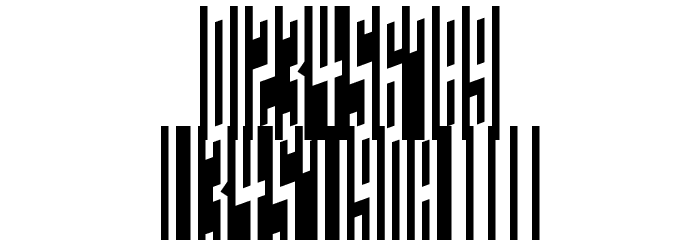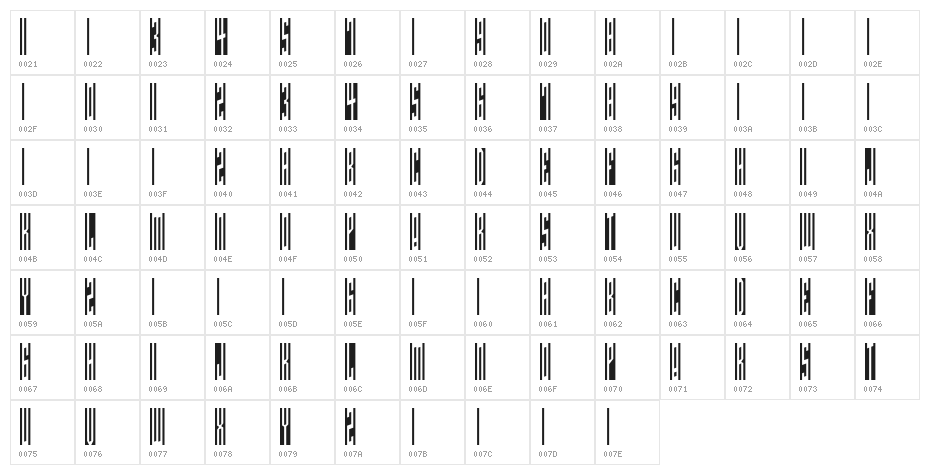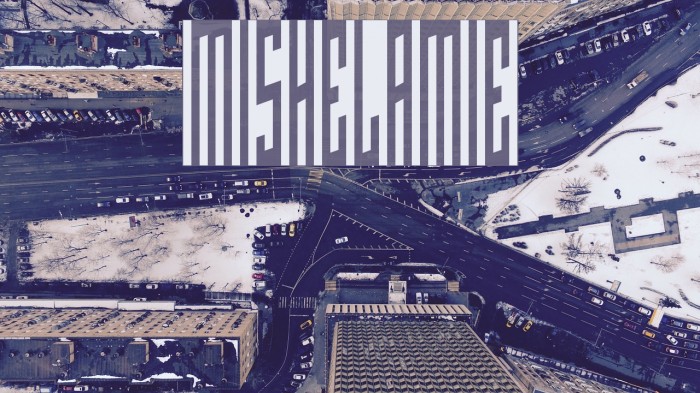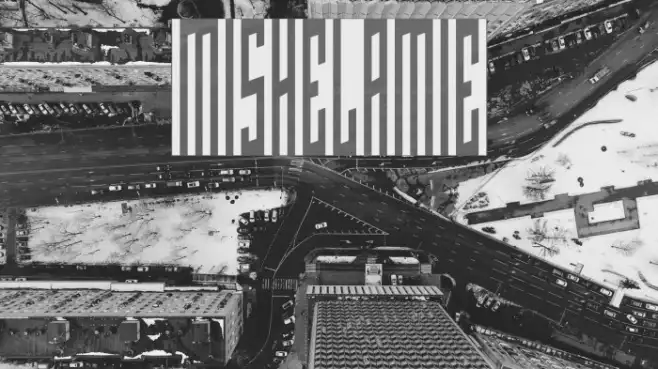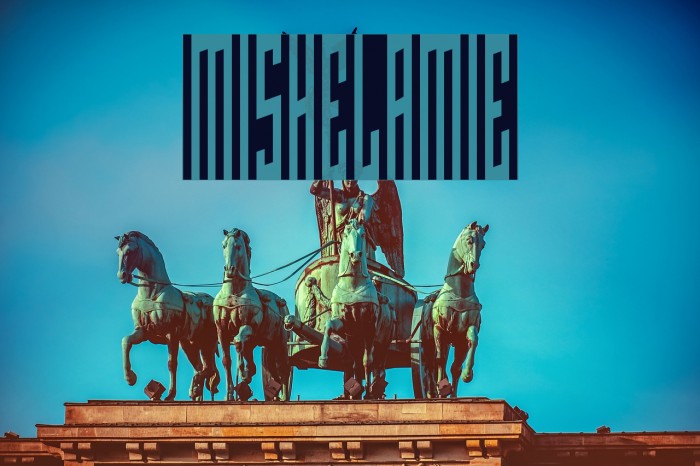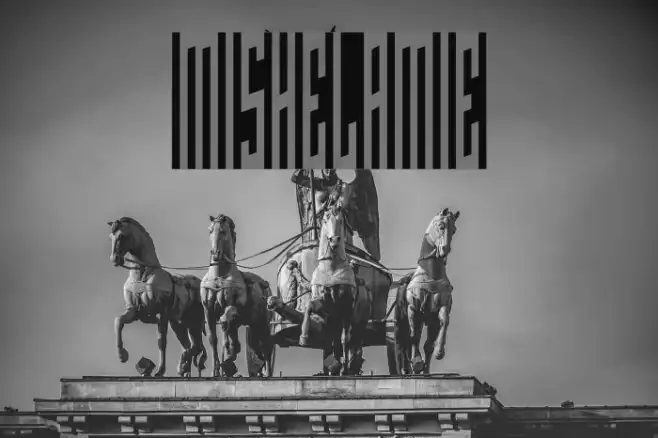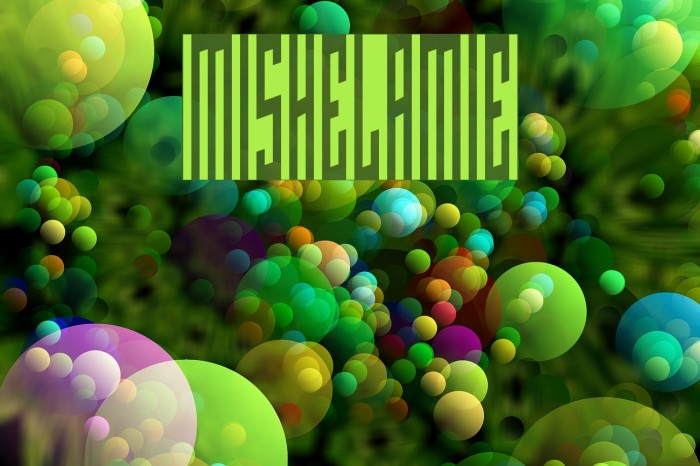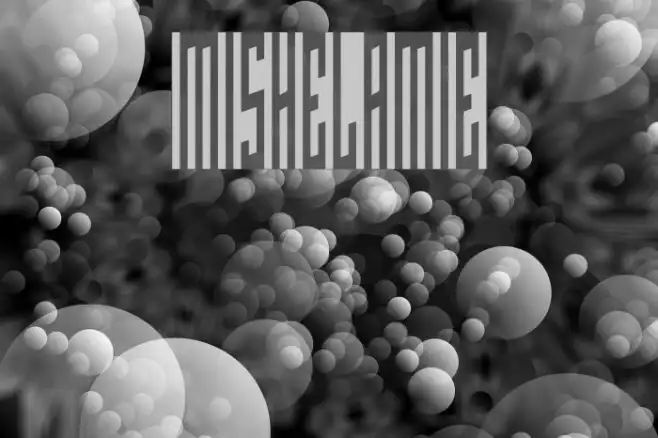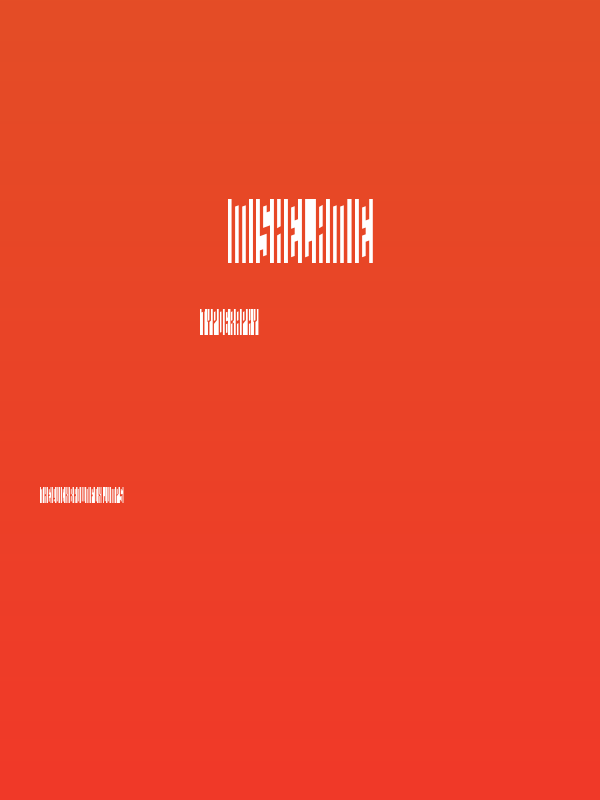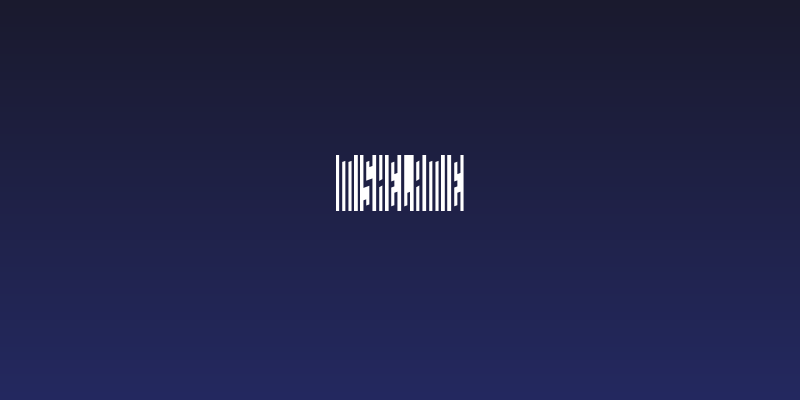
MISHELAMIE Font
MISHELAMIE Description
This font features a highly condensed and geometric style, characterized by its tall, narrow letterforms and sharp angles. The design is bold and striking, with a strong vertical emphasis that creates a sense of height and modernity. The characters are tightly spaced, contributing to a compact and cohesive appearance. The font's unique structure makes it stand out, with each letterform crafted to maintain readability while offering a distinct visual impact. Its boldness and geometric precision make it suitable for projects that require a contemporary and edgy aesthetic.
Proposed ProjectsIdeal for use in branding, posters, album covers, and any project needing a modern, impactful typeface.